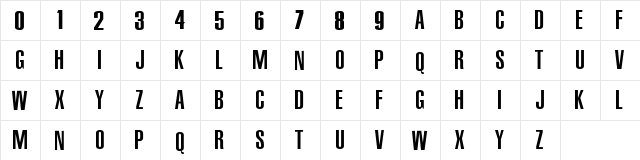
NBA Cavaliers Regular
Design Context for NBA Cavaliers Typeface
NBA Cavaliers offers clean, dependable letterforms without strong stylistic allegiance, making it a practical choice for designers who need flexibility.
Pro Tip: Use NBA Cavaliers in both headline and body roles to test its range before committing to a single application.